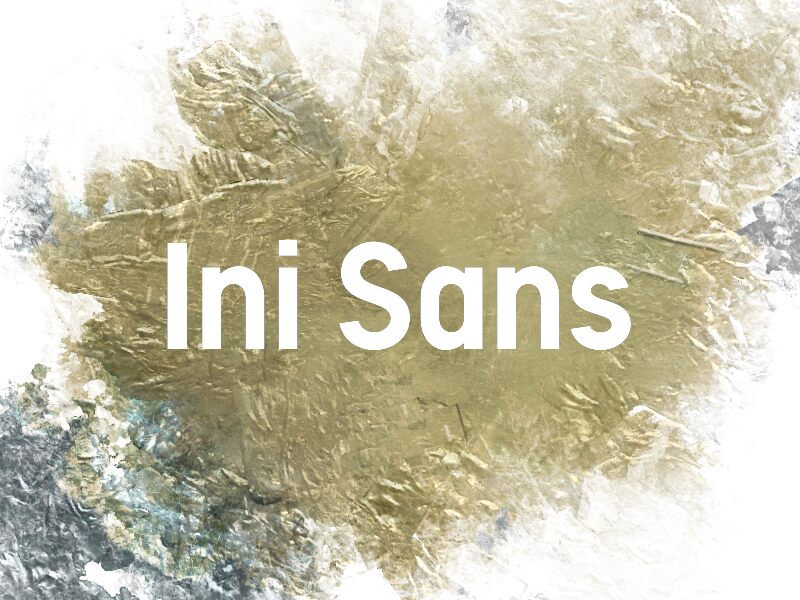
Ini Sans
Ini Sans font by wep is a clean and straightforward sans serif font with geometric influences that give it modern features. The rounded typeface mixes contemporary elements for an interesting visual appearance that can be used in different ways across projects. Furthermore, the minimal design of the letters makes Ini Sans versatile for beauty.
This free font works magically on platform branding, ads, and promotions. Its modern features make it excellent for uniforms and packing products such as professional hair care products. Use it to create meaningful posters or exceptional labels with style; billboards also work wonderfully as much as shop window displays would do!